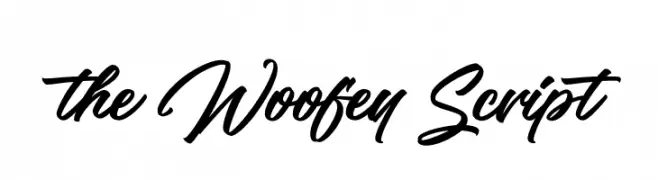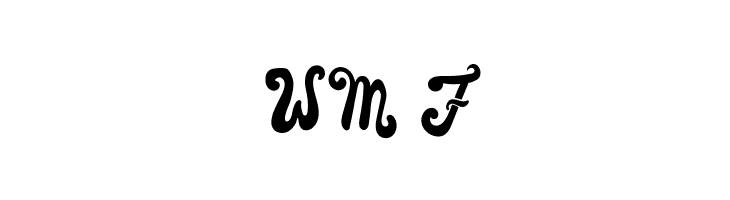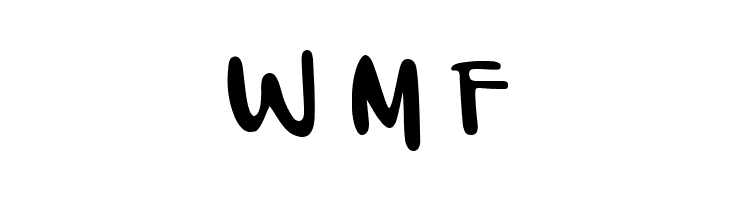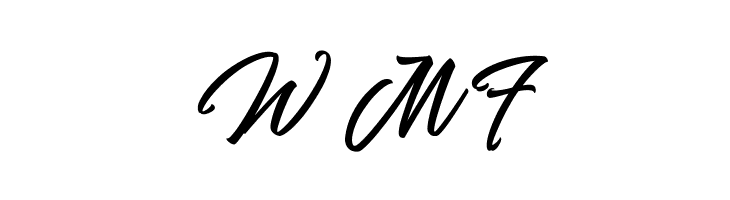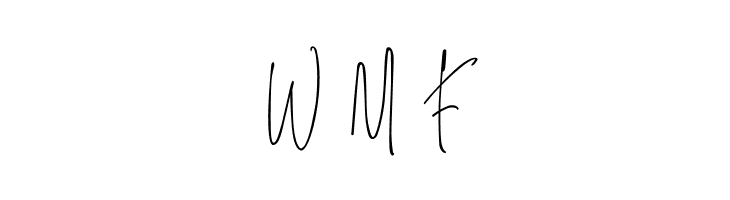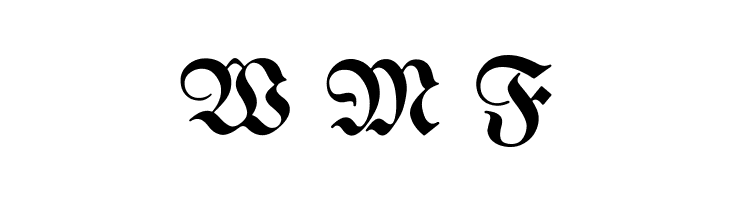
A bold, decorative script with intricate swirls and loops.
A playful, handwritten font with rounded edges and a casual style.
A modern, geometric font supporting the ancient Brahmi script.
A lively and dynamic script font with bold, flowing strokes and elegant connections.
A flowing, elegant script font with bold, cursive strokes and artistic flourishes.
A dynamic, handwritten script with fluid, elongated characters.
A bold, decorative font with a triple-line outline for a dimensional effect.
A bold, modern sans-serif font with clean lines and geometric shapes.
A classic Blackletter font with intricate, gothic-style characters.